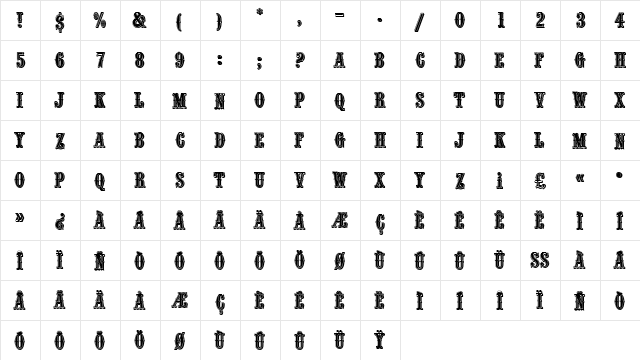
QuentinEF Medium
Design Context for QuentinEF Typeface
QuentinEF is a composed and adaptable typeface that performs quietly and consistently across a wide range of design contexts.